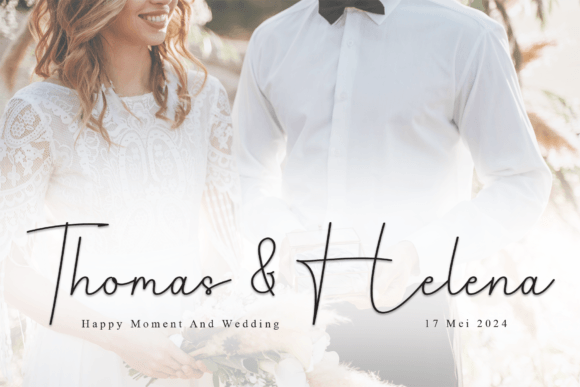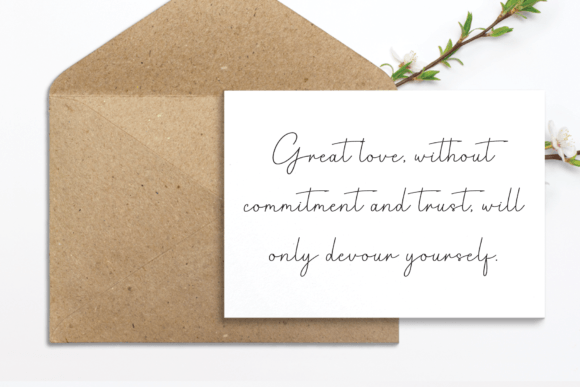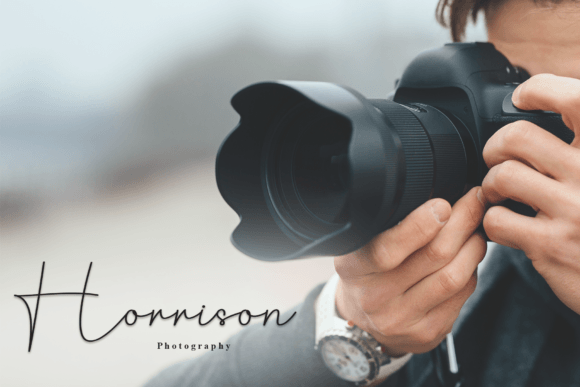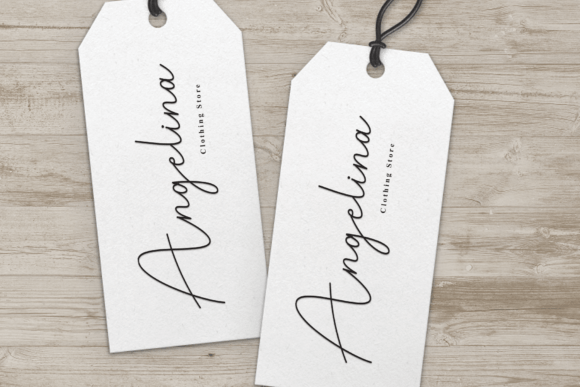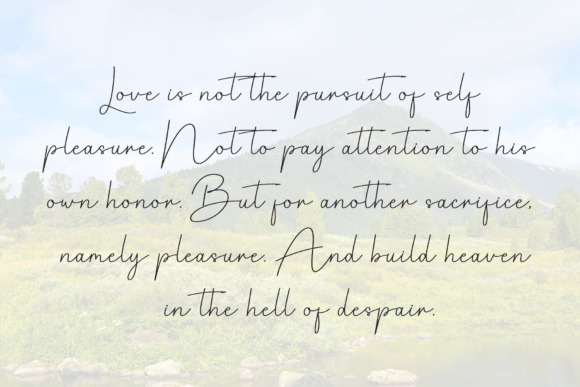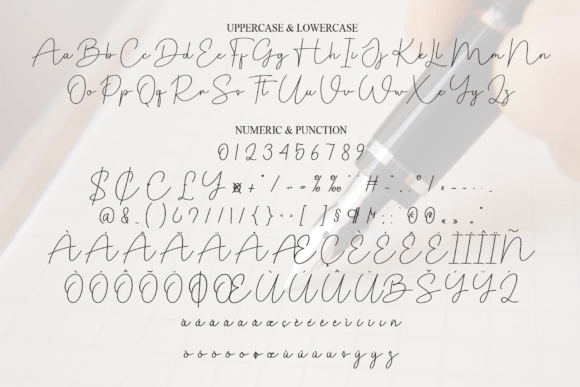
Introduction to American Signature Font
American Signature is a handwritten font that looks like elegant cursive writing.
It has smooth and stylish letters, making it perfect for adding a personal and fancy touch to invitations, greeting cards, and logos .
Key Features of American Signature Font
Why Choose American Signature Font?
American Signature Font offers exceptional quality and versatility, making it a valuable addition to your design toolkit. Whether you’re creating for personal projects or commercial use, American Signature Font delivers professional results.